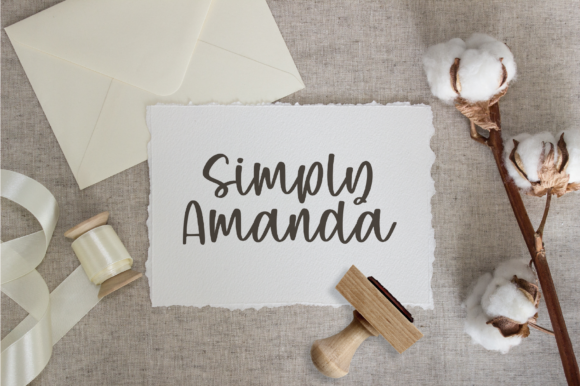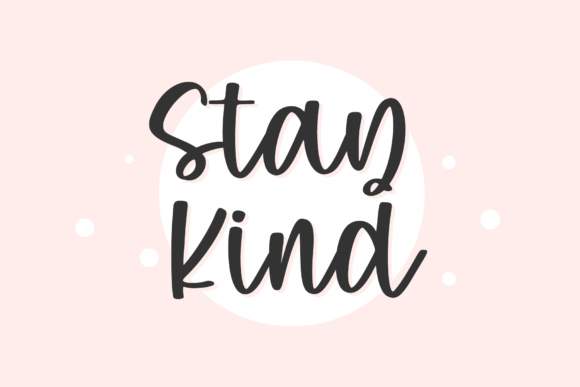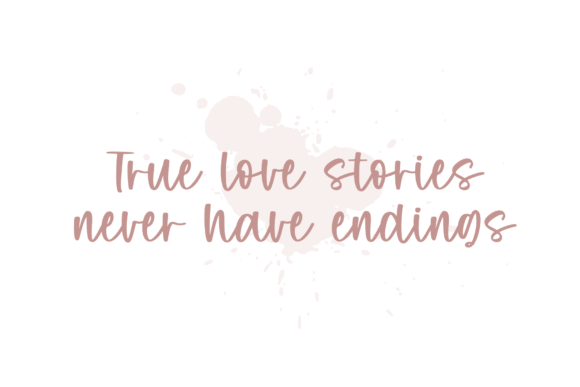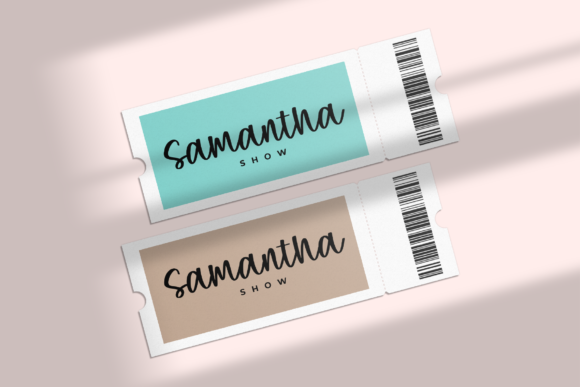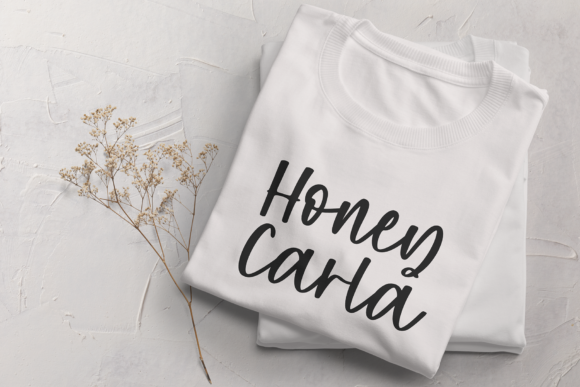
About Kimberly Font
Kimberly is a delightful script font that exudes charm and playfulness. With its charming and playful characters that appear to dance along the baseline, Kimberly adds a touch of whimsy to your designs. When you incorporate this font into your creative ideas, you will notice how it instantly makes them stand out and come to life.
The flowing and dynamic nature of Kimberly’s characters brings energy and liveliness to any project. Whether you’re designing invitations, branding materials, packaging, or social media graphics, Kimberly adds a unique and captivating touch. Its playful characters create a sense of movement and joy, making it an excellent choice for designs that aim to evoke a cheerful and lighthearted atmosphere.
For wedding invitations and event stationery, Kimberly adds a touch of romance and whimsy. Its charming letterforms create a sense of celebration and excitement, setting the tone for a joyous occasion. With Kimberly, you can create beautiful and personalized designs that reflect the unique style and personality of the couple.
In branding and logo design, Kimberly brings a fresh and vibrant feel. Its playful and dynamic characters make it suitable for a variety of industries, such as fashion, beauty, lifestyle, and more. Whether you’re creating a logo or branding materials, Kimberly adds a unique and memorable touch that helps your brand stand out from the competition.
Kimberly is also a great choice for quotes, greeting cards, and social media graphics. Its lively and expressive characters make quotes and messages visually appealing and engaging. With Kimberly, you can create eye-catching designs that capture attention and leave a lasting impression.
In summary, Kimberly is a lovely script font that combines charm, playfulness, and a touch of whimsy. Its dancing characters along the baseline bring a dynamic and lively energy to your designs. Incorporating Kimberly into your creative ideas will make them stand out and leave a lasting impression. Embrace the charm of Kimberly and let it add a delightful and playful touch to your projects.